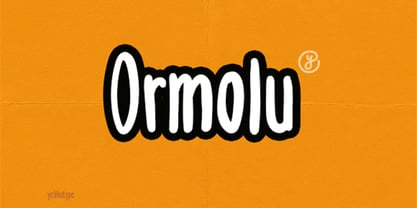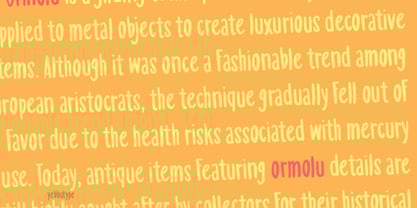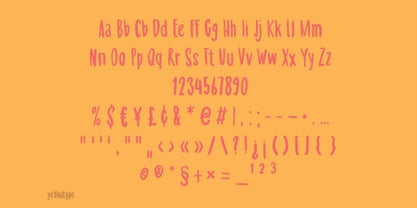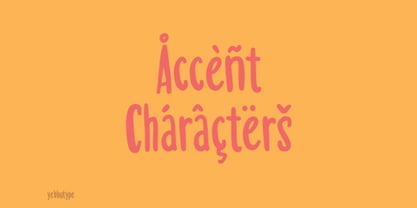
Ormolu
by Yebhu
The Ormolu Font Family was designed by Untung Prasetyo and published by Yebhu. Ormolu contains 1 styles.
Ormolu Font: The Playful Scribble That Brings Joy to Every Design
Introducing Ormolu Font , a delightful new typeface inspired by the carefree strokes of a marker pen and the whimsical charm of handwritten notes. Designed for those who value fun, creativity, and boundless energy, Ormolu Font is more than just a font—it’s an invitation to play, laugh, and express yourself in the most vibrant way possible. With its playful curves, quirky details, and lively personality, this font breathes life into any project it touches.
The Essence of Ormolu Font
Ormolu Font captures the essence of spontaneity and joy. Its informal, hand-drawn aesthetic feels like a warm hug or a doodle-filled notebook passed between friends. Whether you're crafting designs for kids, creating posters that pop with personality, or adding flair to branding projects, Ormolu Font brings a sense of humor and warmth that resonates with audiences of all ages. It’s perfect for moments when you want your message to feel friendly, approachable, and full of heart.
Key Features
• Playful & Informal Style :
Ormolu Font mimics the natural flow of handwriting, complete with slight irregularities and organic shapes. The result? A font that feels alive and relatable—perfect for casual, fun-loving designs.
• Quirky Details :
Each letter has unique characteristics, such as elongated tails on letters like g , j , and r . Numbers and symbols are equally charming, with uneven lines and playful flourishes that make them stand out.
• Condensed & Dynamic Proportions :
Despite its tall and slim structure, Ormolu Font maintains a cozy feel thanks to its tight kerning. This condensed design ensures readability while keeping things visually engaging.
• Bold Color Palette :
Imagine bright pink characters dancing against an orange backdrop—Ormolu Font radiates positivity and high-energy vibes. While customizable, the default color scheme screams cheerfulness and creativity.
• Versatile Use Cases :
From children’s books to party invitations, Ormolu Font adapts seamlessly to a variety of creative needs. Its versatility makes it a go-to choice for designers looking to inject personality into their work.
Mood & Personality
Ormolu Font embodies the spirit of childhood wonder and youthful exuberance. Picture a sunny day at the park, laughter echoing through the air, and colorful chalk drawings covering the pavement—that’s the vibe Ormolu Font brings to your designs. It’s lighthearted without being childish, creative without losing clarity, and fun without compromising professionalism.
Ideal Use Cases
• Children’s Books & Storytelling :
Bring stories to life with Ormolu Font’s whimsical touch. Perfect for titles, dialogues, or chapter headers, it creates an immersive reading experience for young readers.
• Creative Posters & Flyers :
Hosting a workshop, art event, or school fair? Ormolu Font adds a dash of excitement and grabs attention instantly.
• Branding for Kids’ Products :
Toy brands, educational apps, or family-oriented businesses can use Ormolu Font to connect with their audience in a meaningful (and memorable) way.
• Casual Invitations & Greeting Cards :
Birthdays, baby showers, or holiday cards—Ormolu Font makes every occasion feel special and celebratory.
• Illustrations & Social Media Graphics :
Add a playful twist to your digital content. Whether it’s Instagram posts, TikTok overlays, or Pinterest pins, Ormolu Font keeps your audience engaged.
Why Choose Ormolu Font?
In a world filled with sleek sans-serifs and rigid serifs, Ormolu Font stands apart as a breath of fresh air. It reminds us to embrace imperfection, celebrate individuality, and find joy in the little things. Whether you’re designing for kids, teens, or the young-at-heart, Ormolu Font helps you create connections that feel authentic and genuine.
Let Your Imagination Run Wild
With Ormolu Font, there’s no limit to what you can create. Let its playful curves and quirky details inspire you to think outside the box and bring your wildest ideas to life. Whether you’re aiming for something cute, funny, or downright adorable, Ormolu Font will help you deliver your message with style and charisma.
P.S.: Life’s too short for boring fonts. Make every project sparkle with Ormolu Font!
Designers: Untung Prasetyo
We focus on creating hand-printed typefaces with a personal touch, using brushes, pens, ink, and paint to bring our fonts to life—some of which can look delightfully quirky or even a little spooky in the coolest way possible. Each font we create is inspired by the rhythms of everyday life and the hopes we hold for the future, blending the ordinary with a dash of imagination to craft something truly unique.